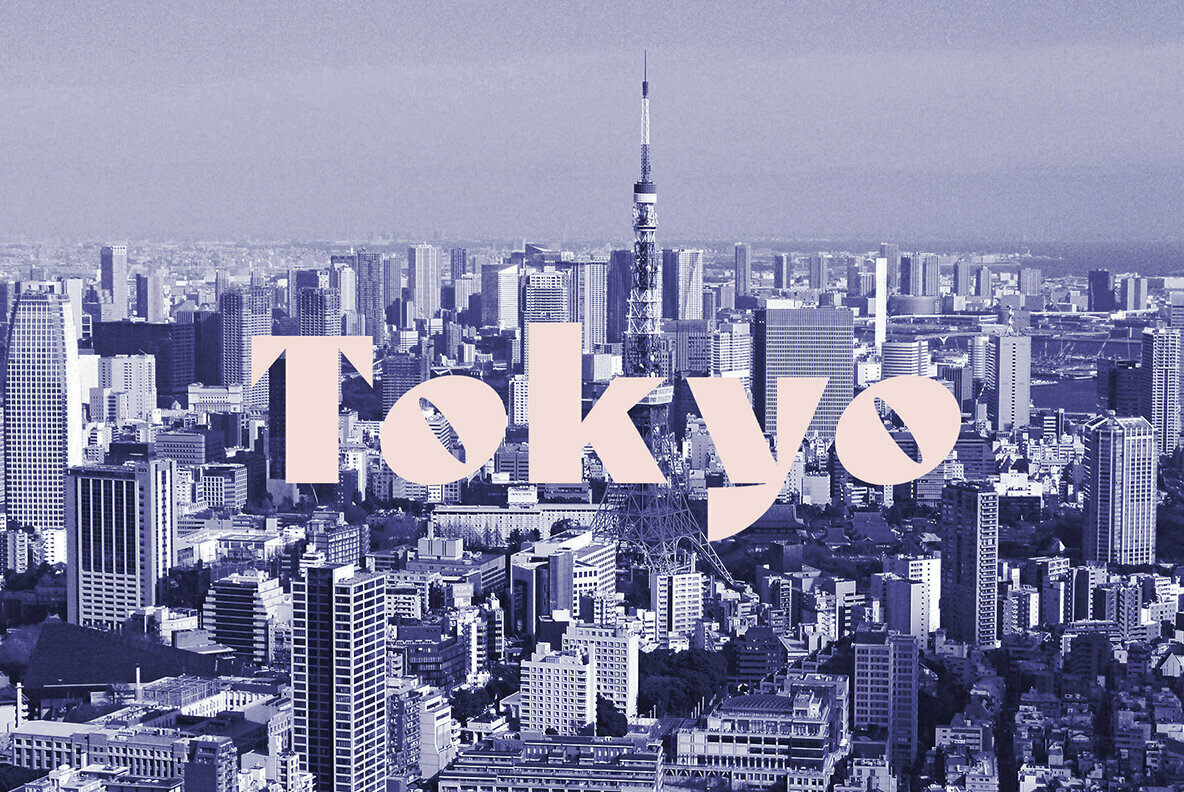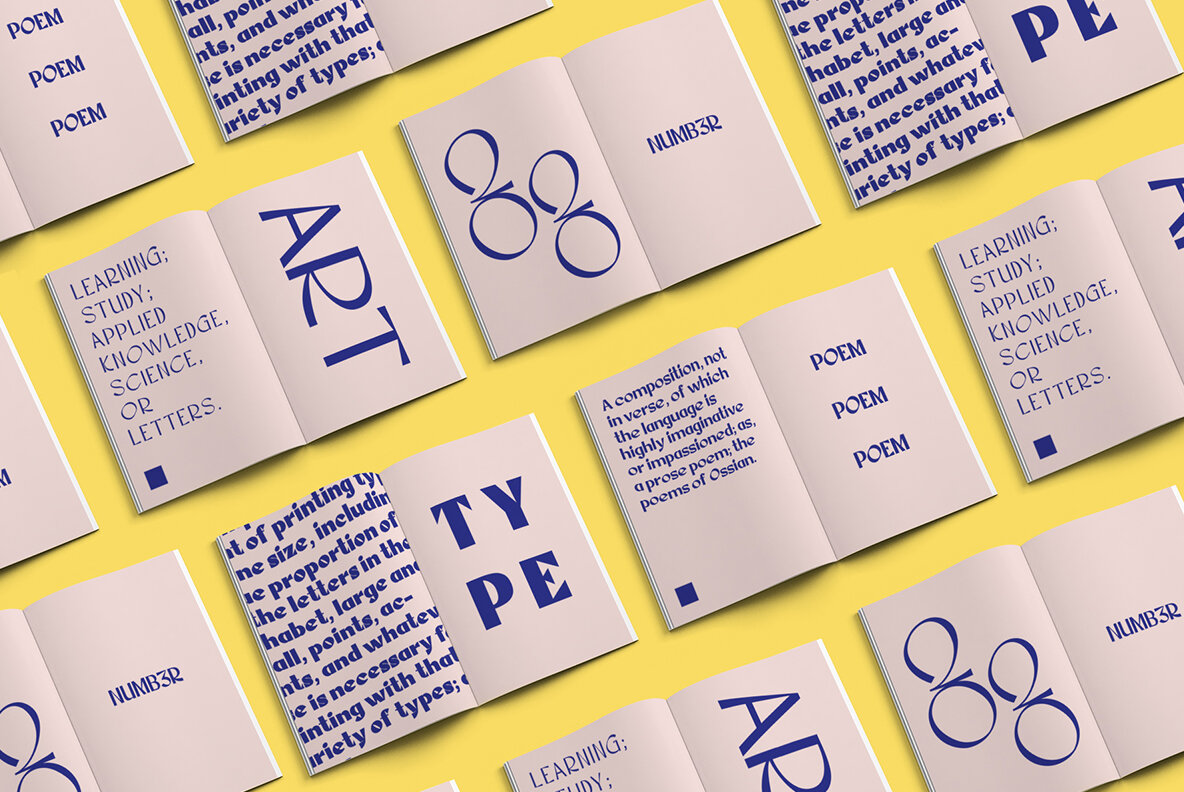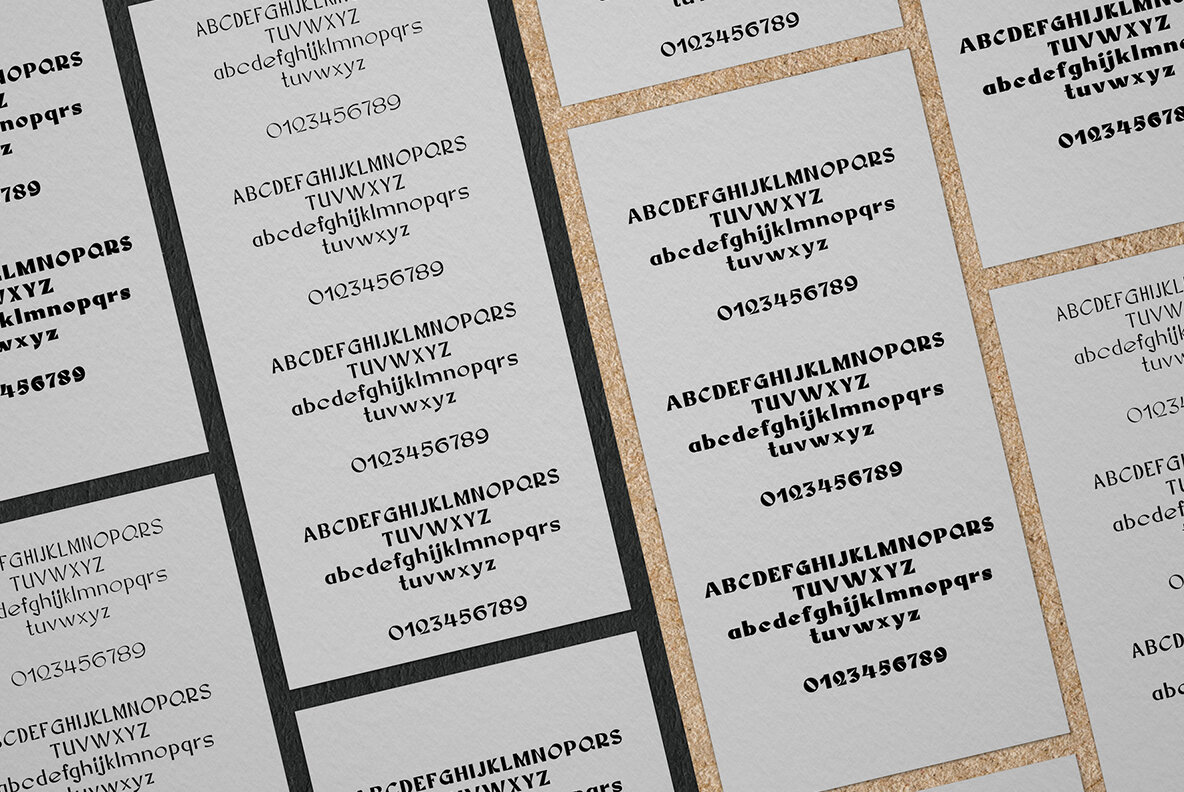
Corbyn
Corbyn is a unique sans serif font, designed to be combined with various fonts and can be applied to the design or branding of a project. This font consists of uppercase, lowercase, ligature, punctuation, symbol, mark, number, and multi-language support.
Corbyn is available in 7 styles: Thin, ExtraLight, Light, Regular, Medium, SemiBold, and Bold. This font is good for various graphic design needs, such as, magazines, posters, logos, branding, UI / UX, etc.